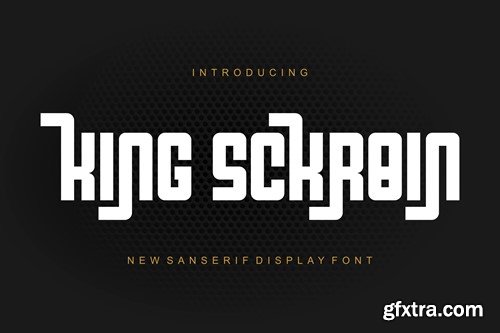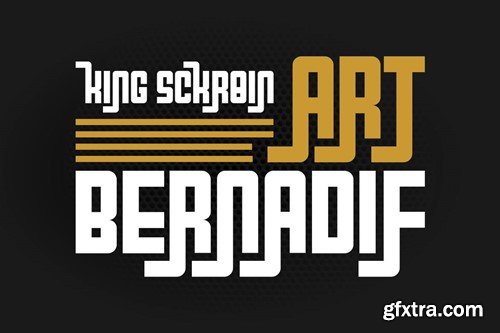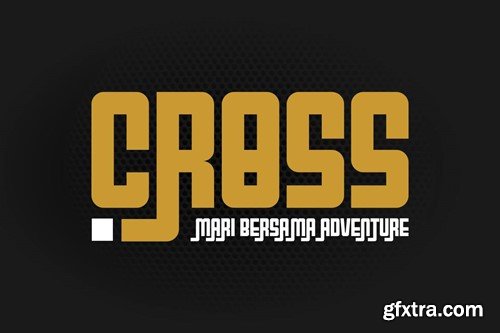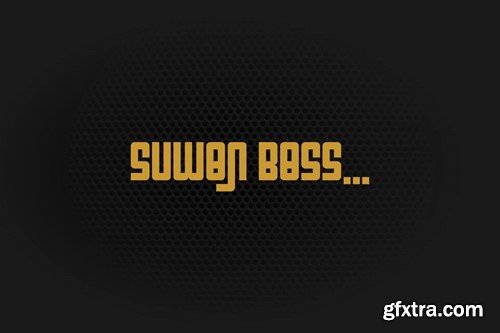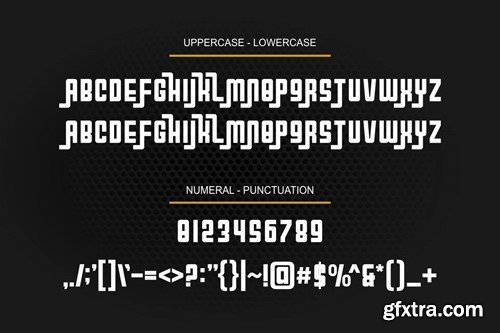
キング スクロイン フォント QRCS5YR
King Sckroin Font
Introducing our new product King Sckroin Font - Modern Font King Sckroin Font- Modern Font is a bold and authentic display font. The font is suitable for any branding project like logo, t-shirt printing, esport, and many more. outstanding in a wide range of contexts. availlable